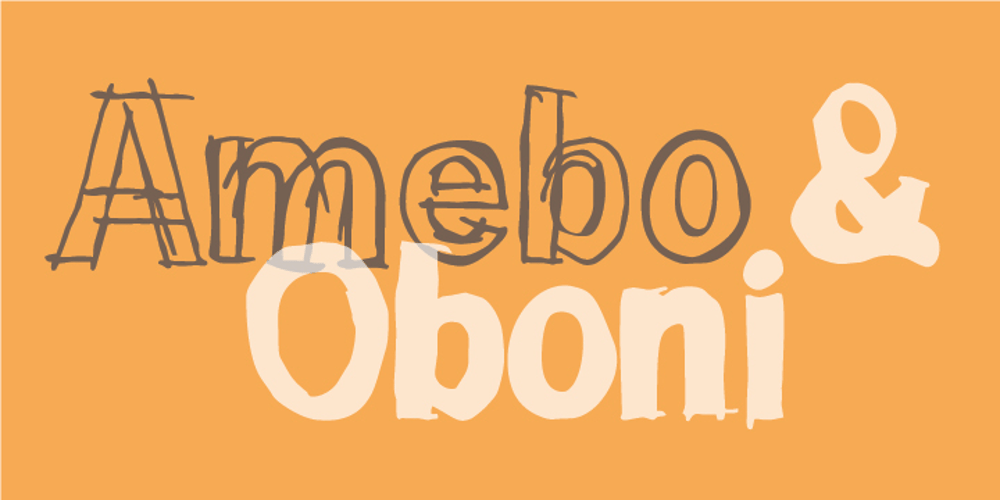
Amebo & Oboni Font Family was designed by Lars Harmsen and published by Volcano Type. Amebo & Oboni contains 2 styles and family package options. “Oboni, how are you. I am fine, thank you!” This little song is what you will hear in Ghana and Togo. The white people are called Oboni and the black people are the Amebo. We’ll bring both cultures together!